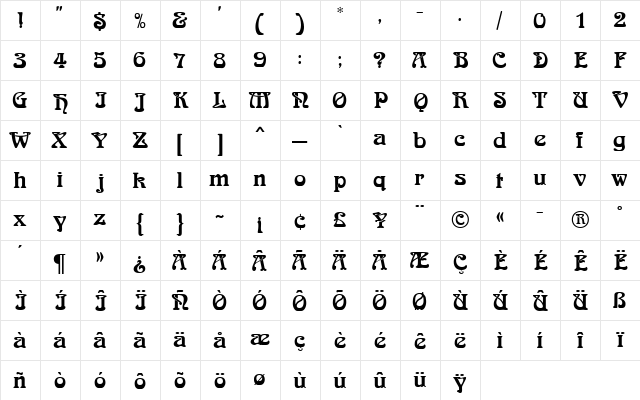
Arnold Bocklin MN Regular
Design Context for Arnold Bocklin MN Typeface
Arnold Bocklin MN is a composed and adaptable typeface that performs quietly and consistently across a wide range of design contexts.
Pro Tip: Use Arnold Bocklin MN in both headline and body roles to test its range before committing to a single application.